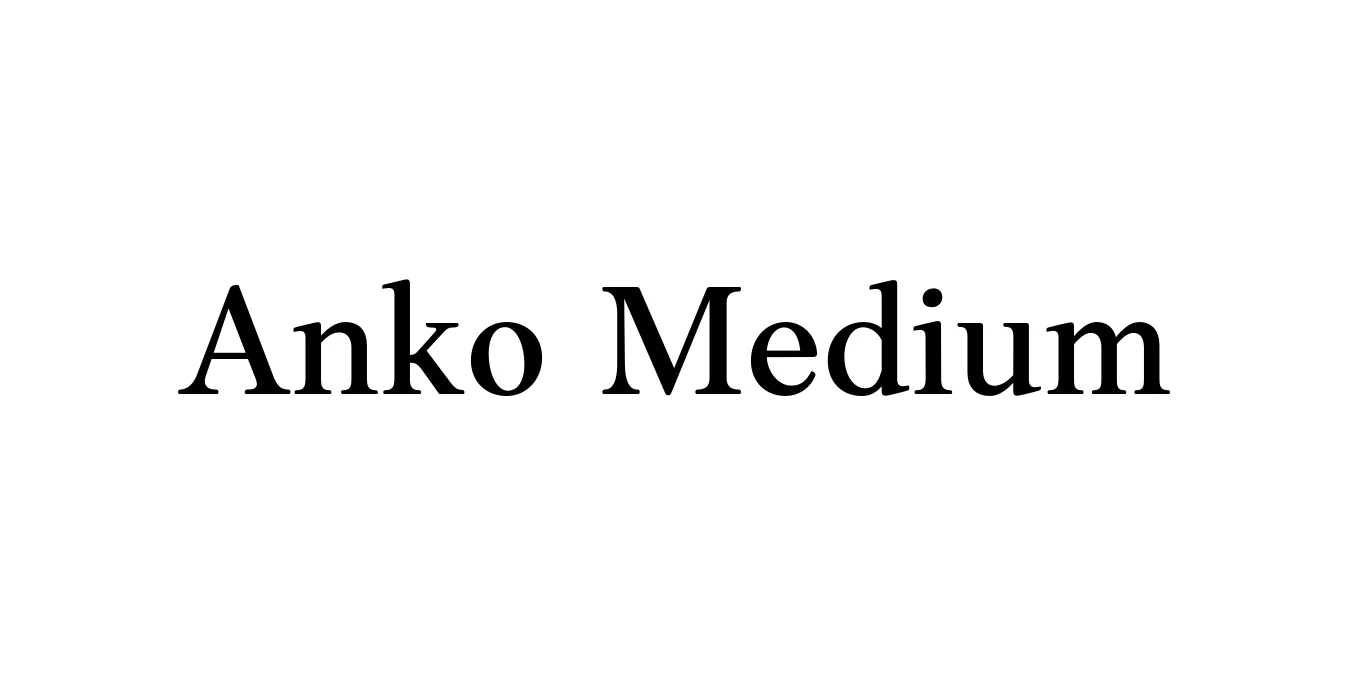
Anko Medium
Designed by Arwan Sutanto
Anko Medium is a sophisticated serif typeface meticulously crafted by Arwan Sutanto of Locomotype. It represents a refined balance between classical Roman proportions and contemporary digital design sensibilities. The Medium weight serves as a versatile middle ground, offering enough visual weight for impactful headlines while maintaining the clarity and rhythm required for comfortable long-form reading in editorial environments.
This typeface is characterized by its moderate contrast, sharp serifs, and open counters, which lend it an air of elegance and authority. Historically inspired by humanist typography, Anko Medium has been optimized for modern high-resolution screens and high-quality print production. It is a preferred choice for designers looking to convey a sense of professionalism, tradition, and modern reliability in their typographic compositions.
Anko Medium Best Uses
Perfect for high-end corporate identities and sophisticated logo designs.
Excellent for magazine layouts, book interiors, and scholarly journals.
Highly readable for professional blog posts, headers, and digital storytelling.
Ideal for business cards, formal invitations, and luxury packaging.
Anko Medium Glyphs